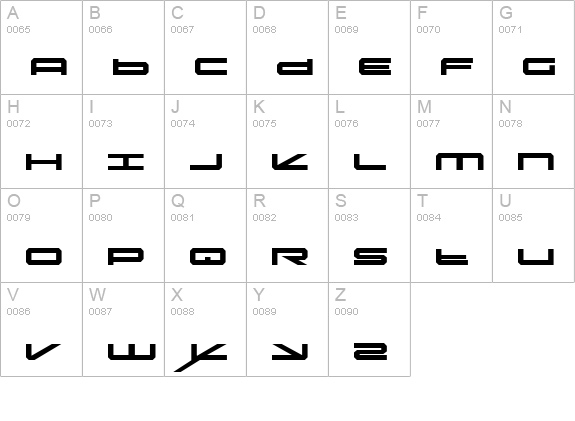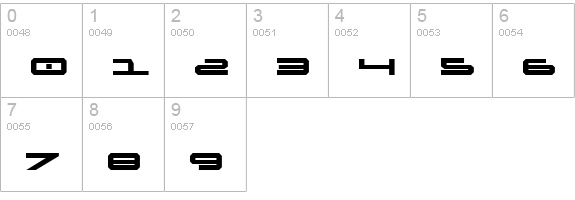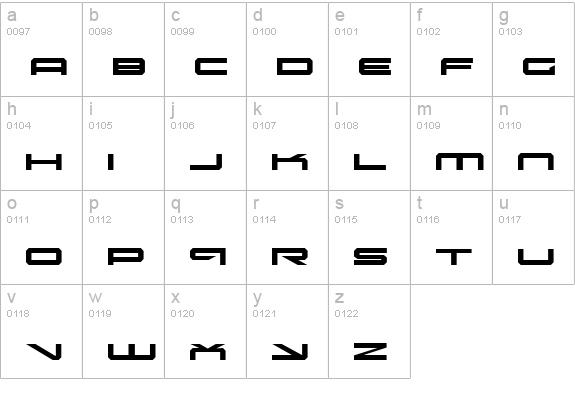
Oramac font is a versatile and stylish typeface that exudes elegance and sophistication. With its clean lines and modern aesthetic, Oramac is perfect for a wide range of design projects, from branding to editorial layouts. This font strikes the perfect balance between professionalism and creativity, making it ideal for both corporate and creative endeavors. What sets Oramac font apart is not only its sleek design but also the fact that it is available for free download at FontsMarket.com. This means that you can easily access this high-quality font without breaking the bank, making it a valuable addition to any designer's toolkit. Whether you're working on a logo, website, poster, or any other project that requires a touch of class, Oramac font is sure to elevate your design to the next level. Download it today and unleash your creativity with this stunning typeface.